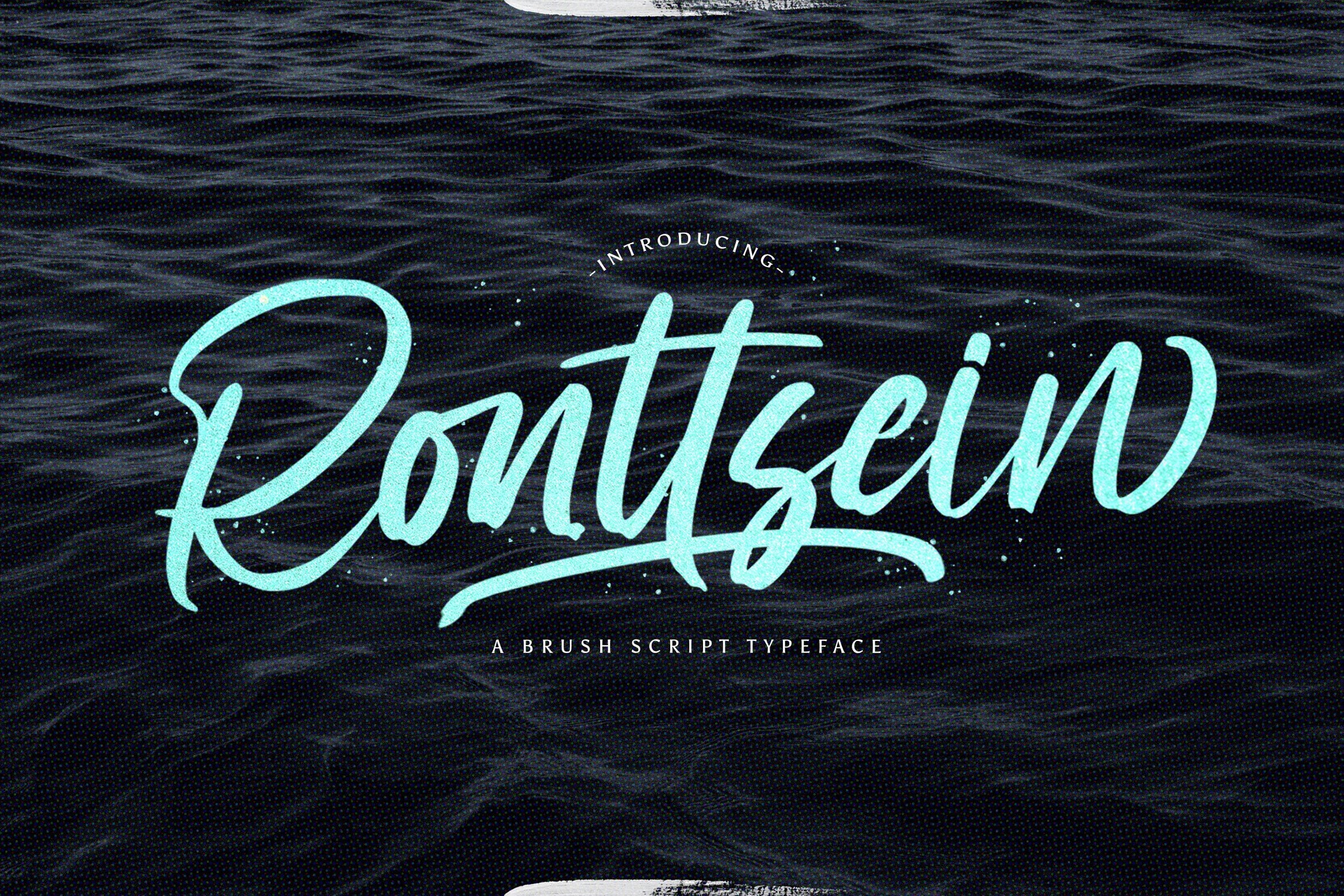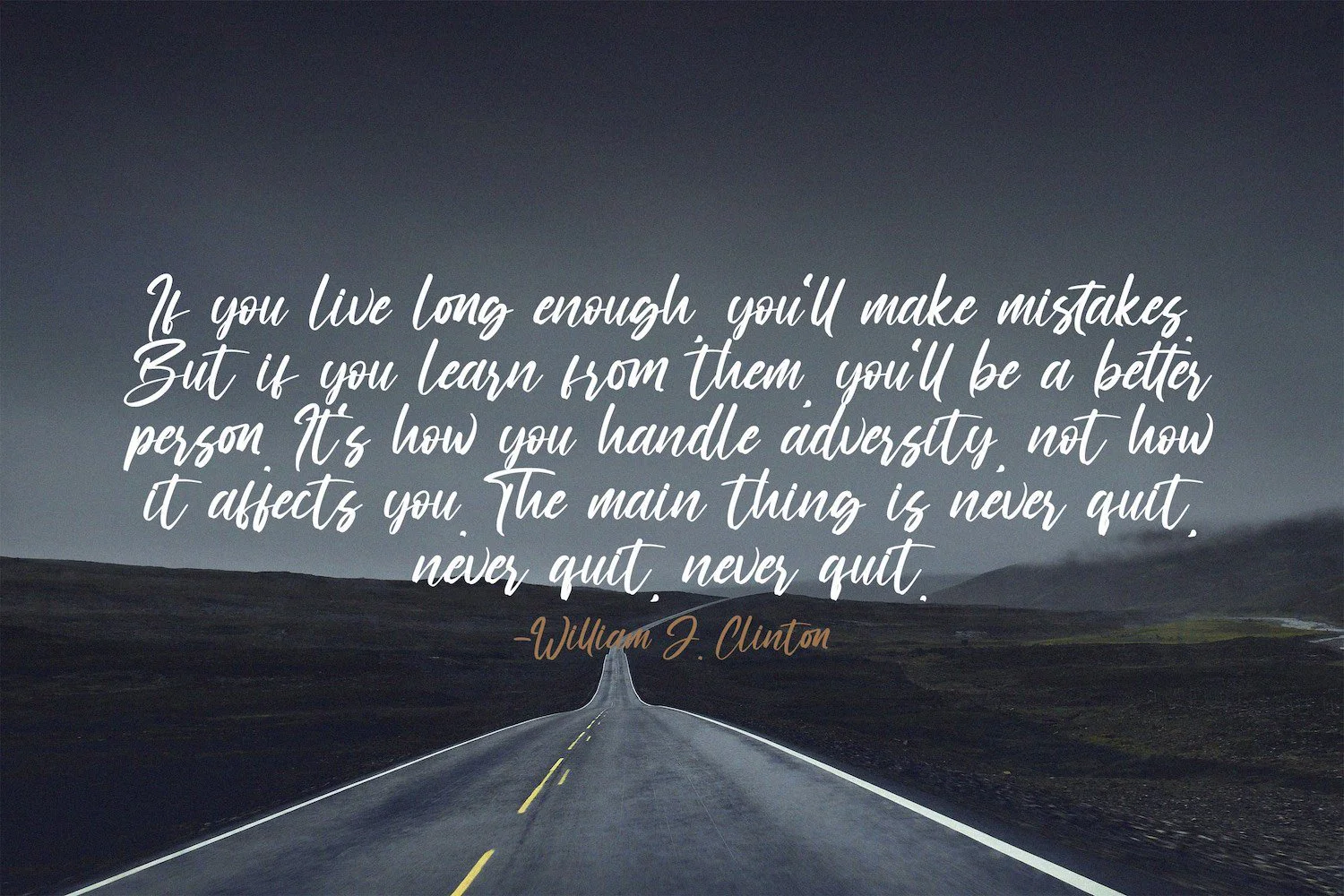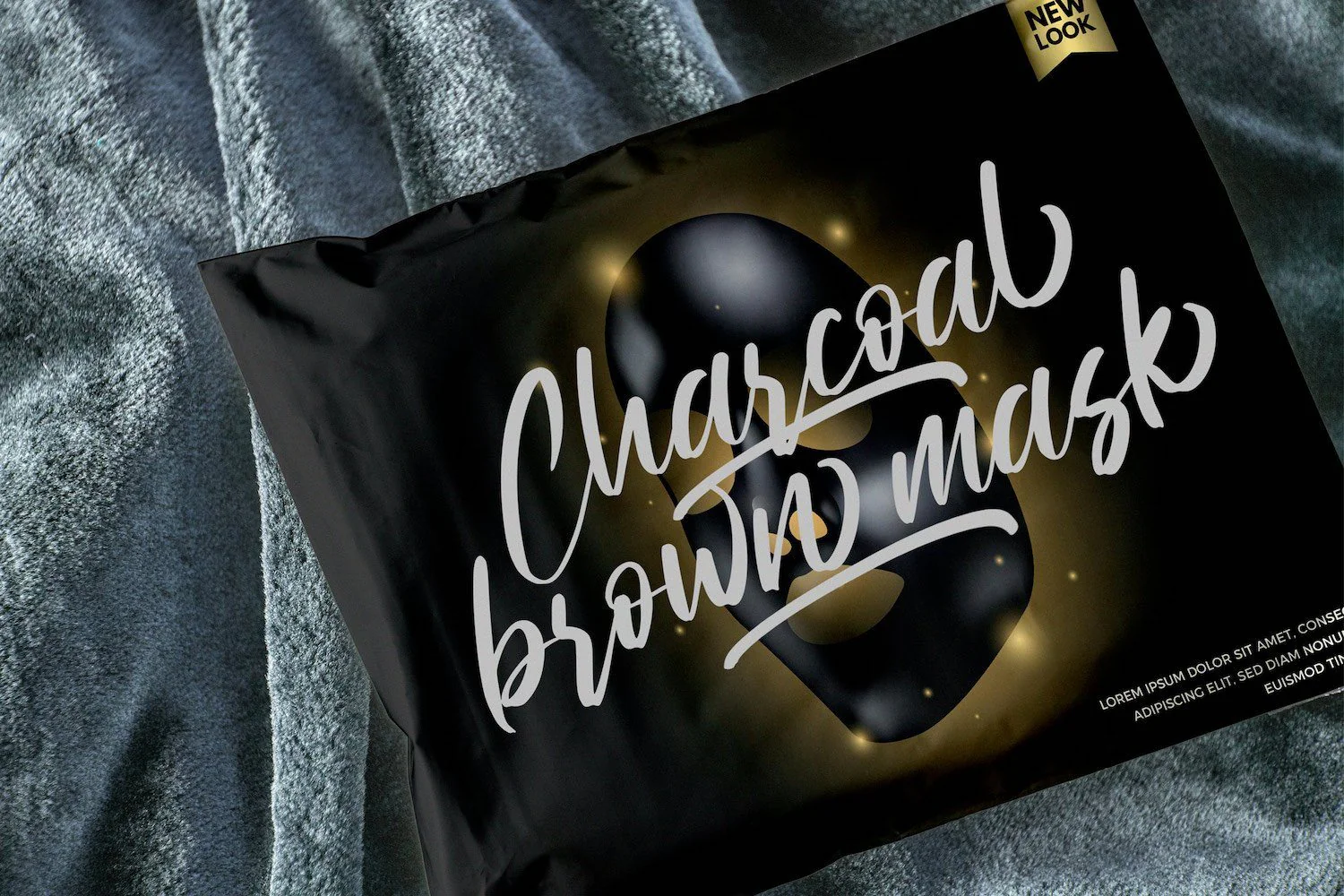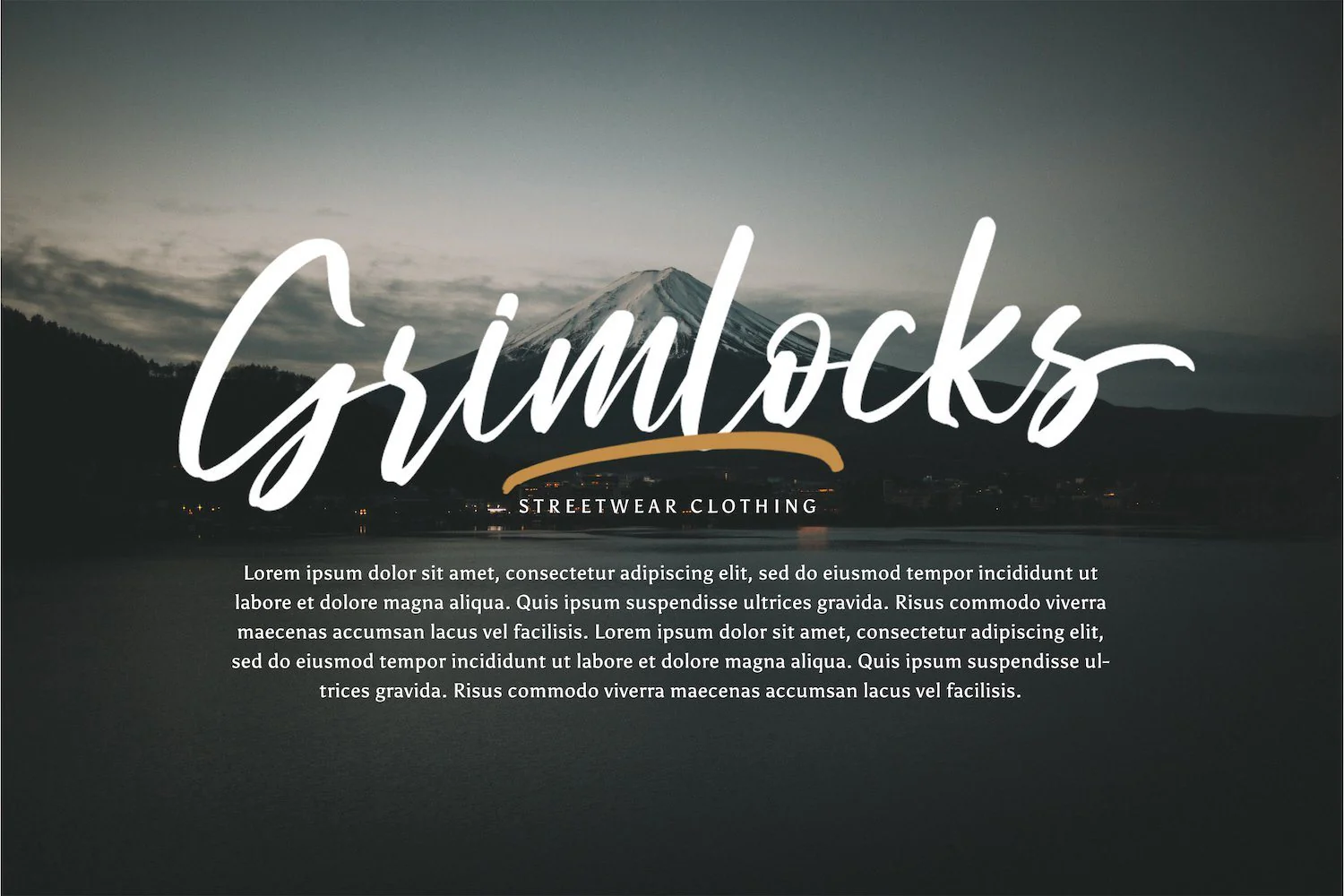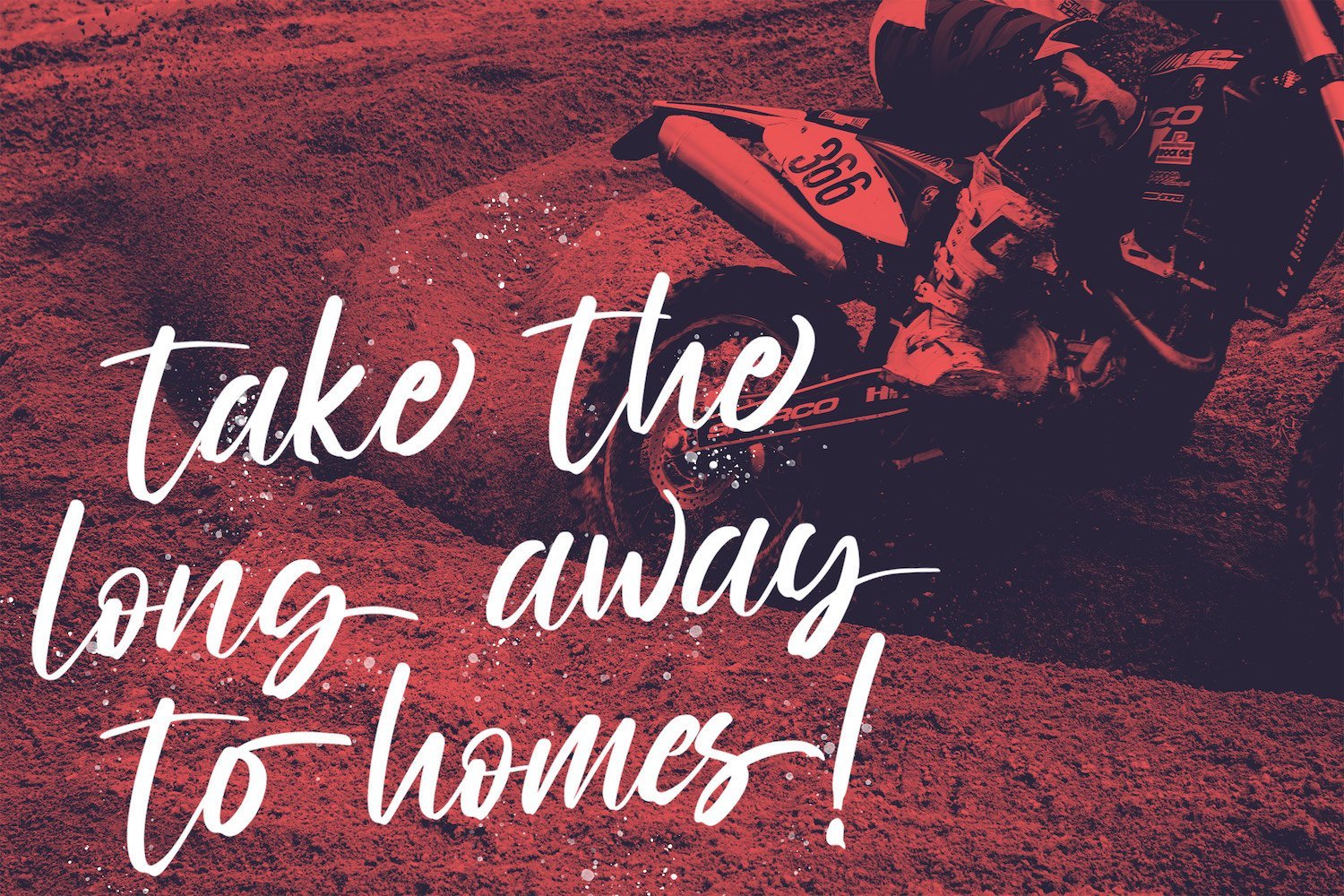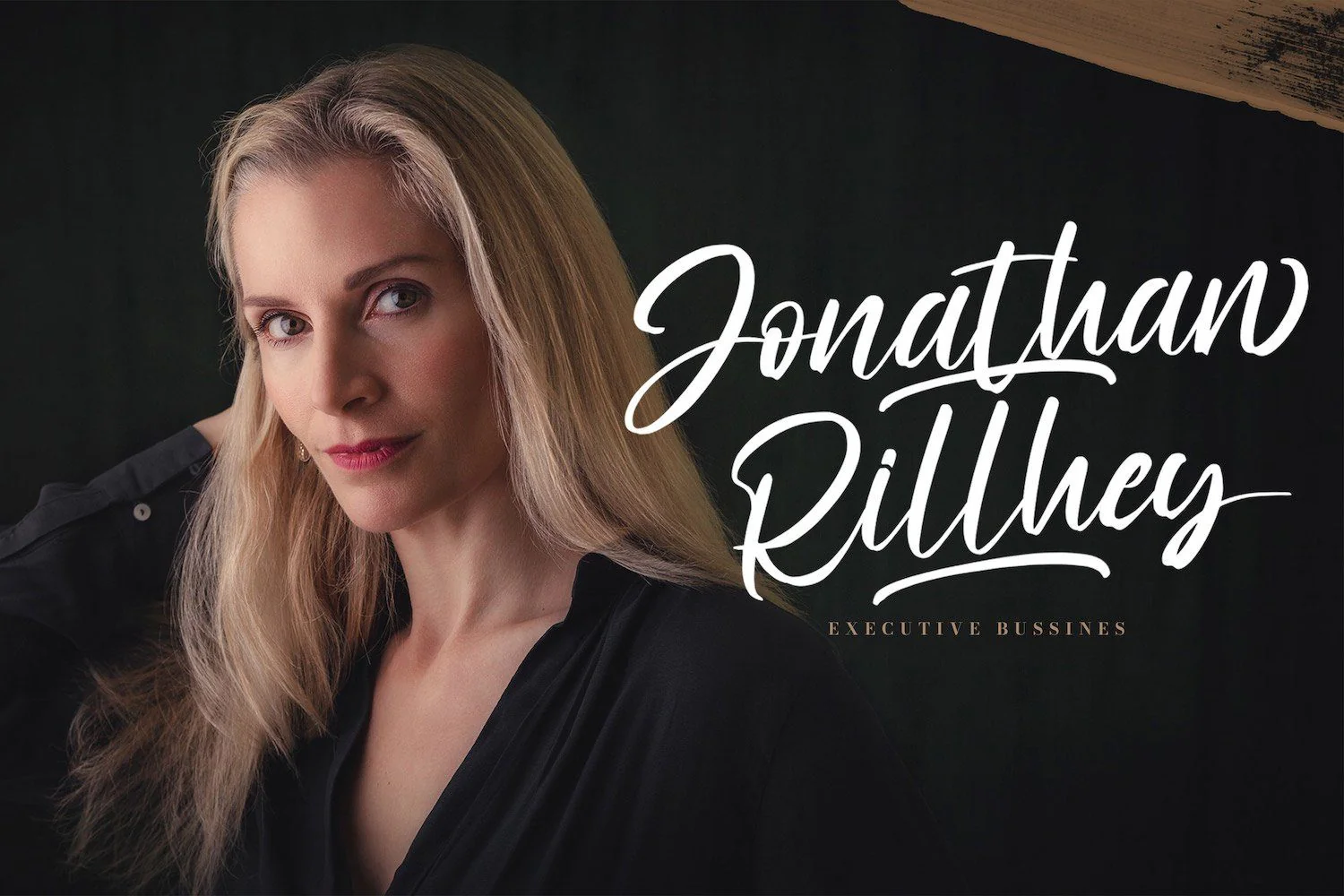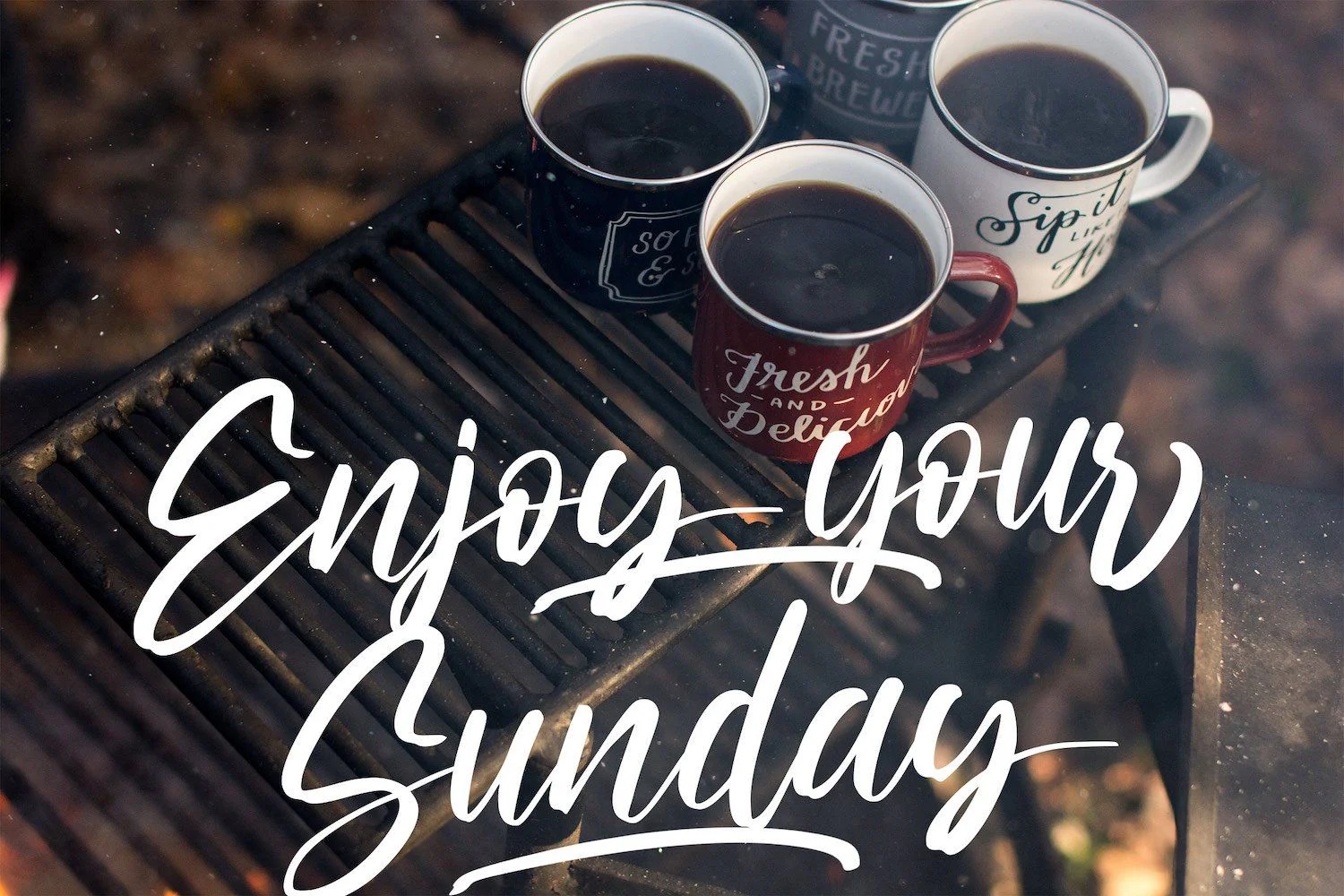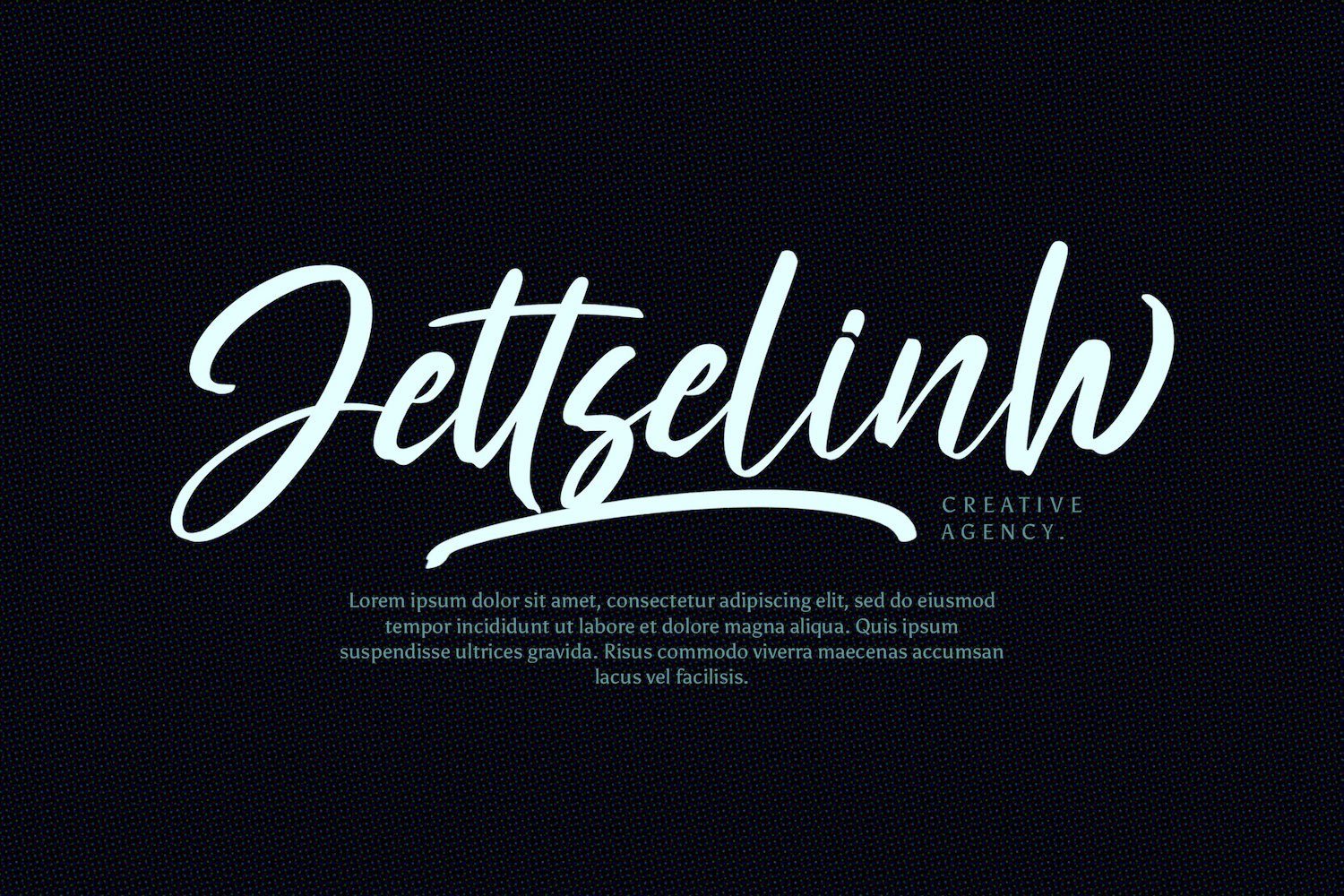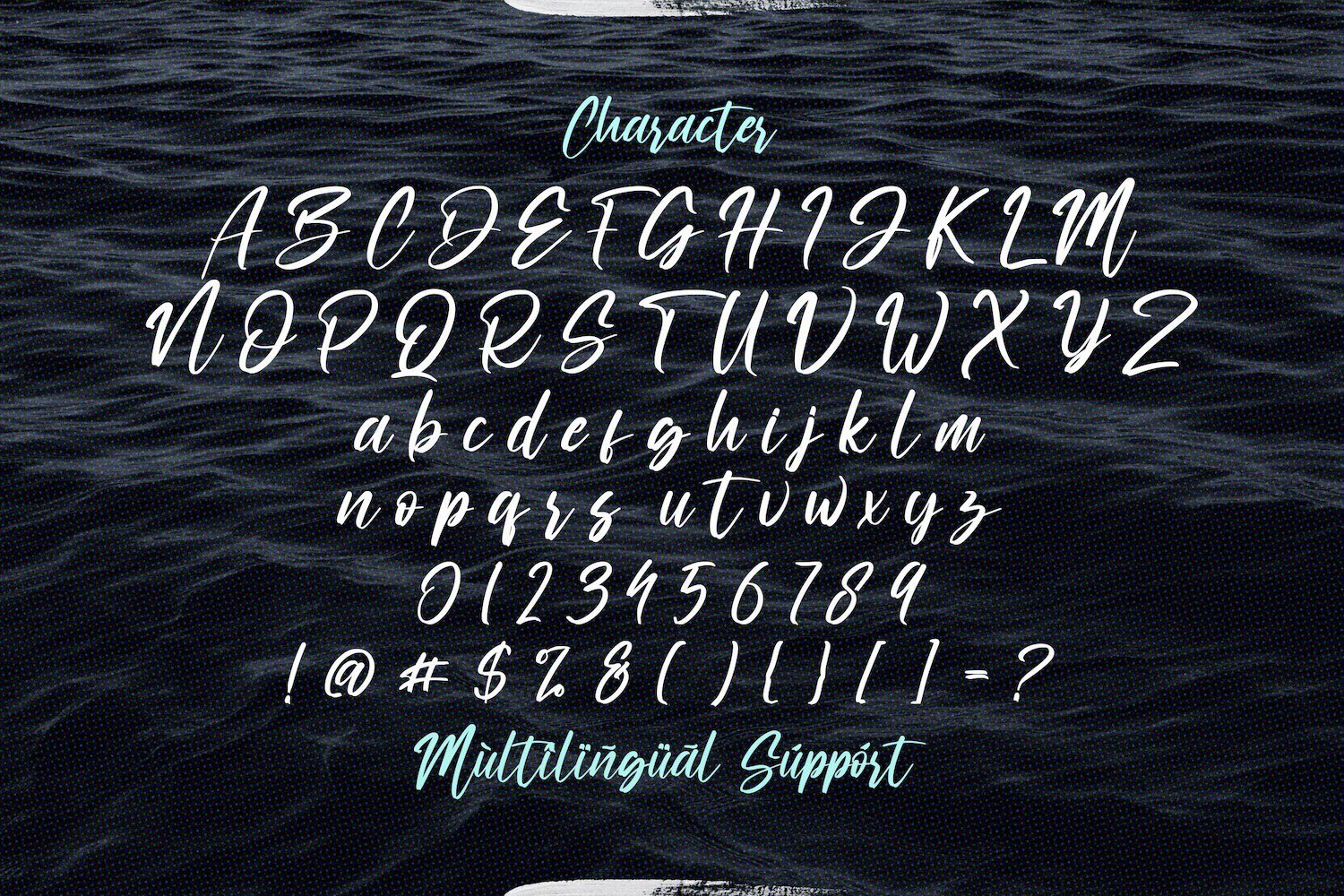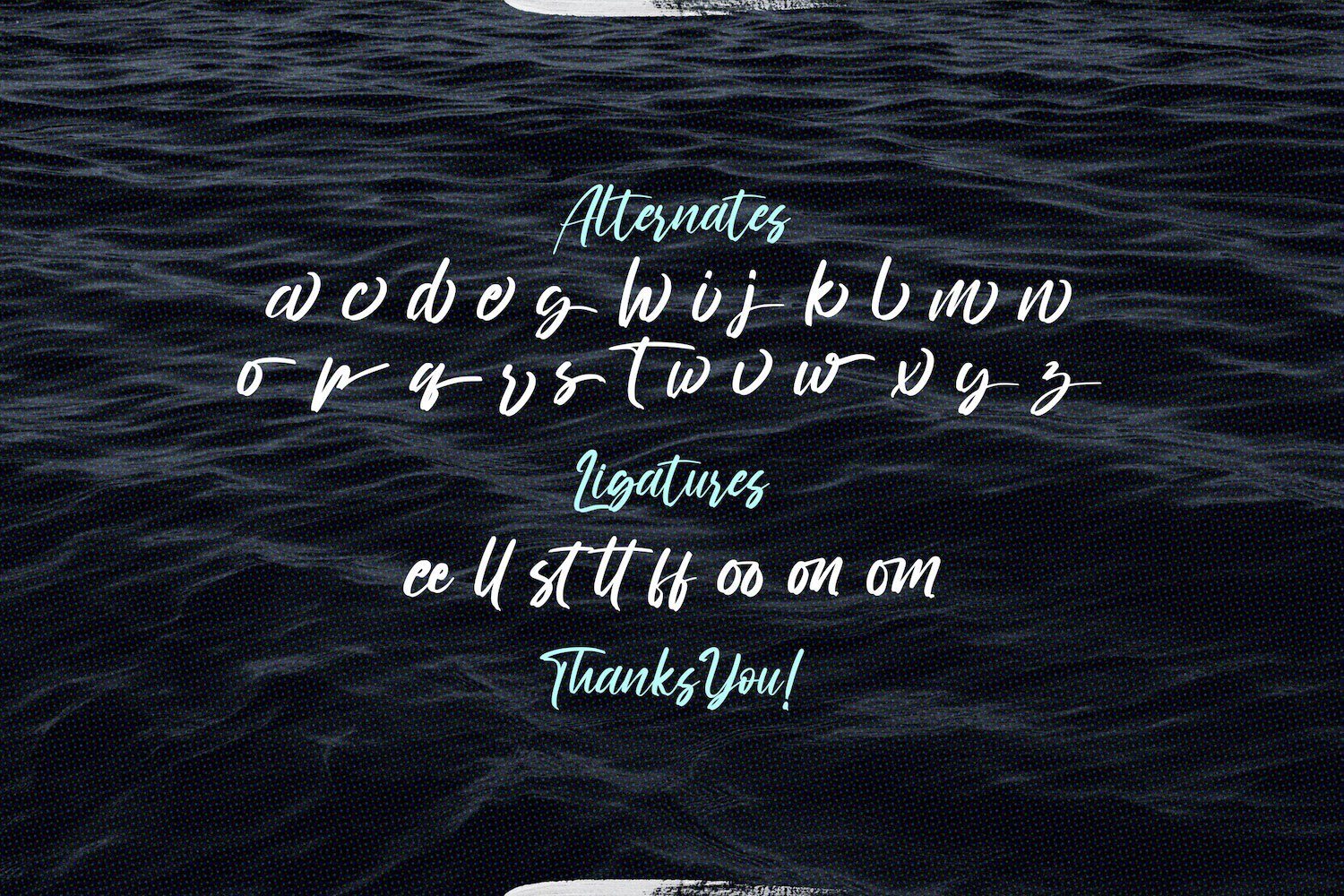
Ronttsein - Brush Script Font
Introducing Ronttsein - Brush Script Font
Ronttsein is a flowing and elegant handwritten font, created with the help of a brush pen. Get inspired by its unique and beautiful style and add it to your favorite designs!
Introducing Ronttsein - Brush Script Font
Ronttsein is a flowing and elegant handwritten font, created with the help of a brush pen. Get inspired by its unique and beautiful style and add it to your favorite designs!